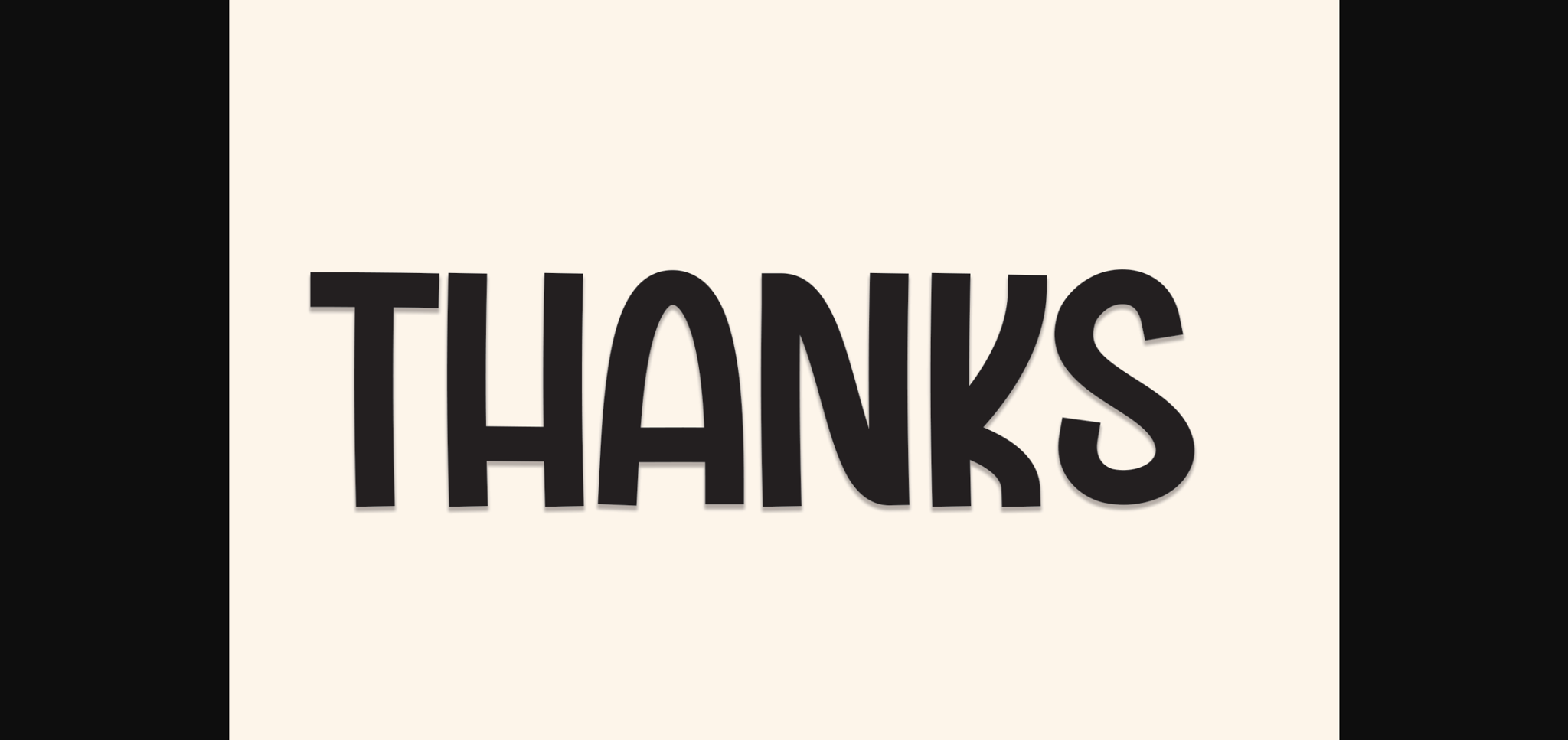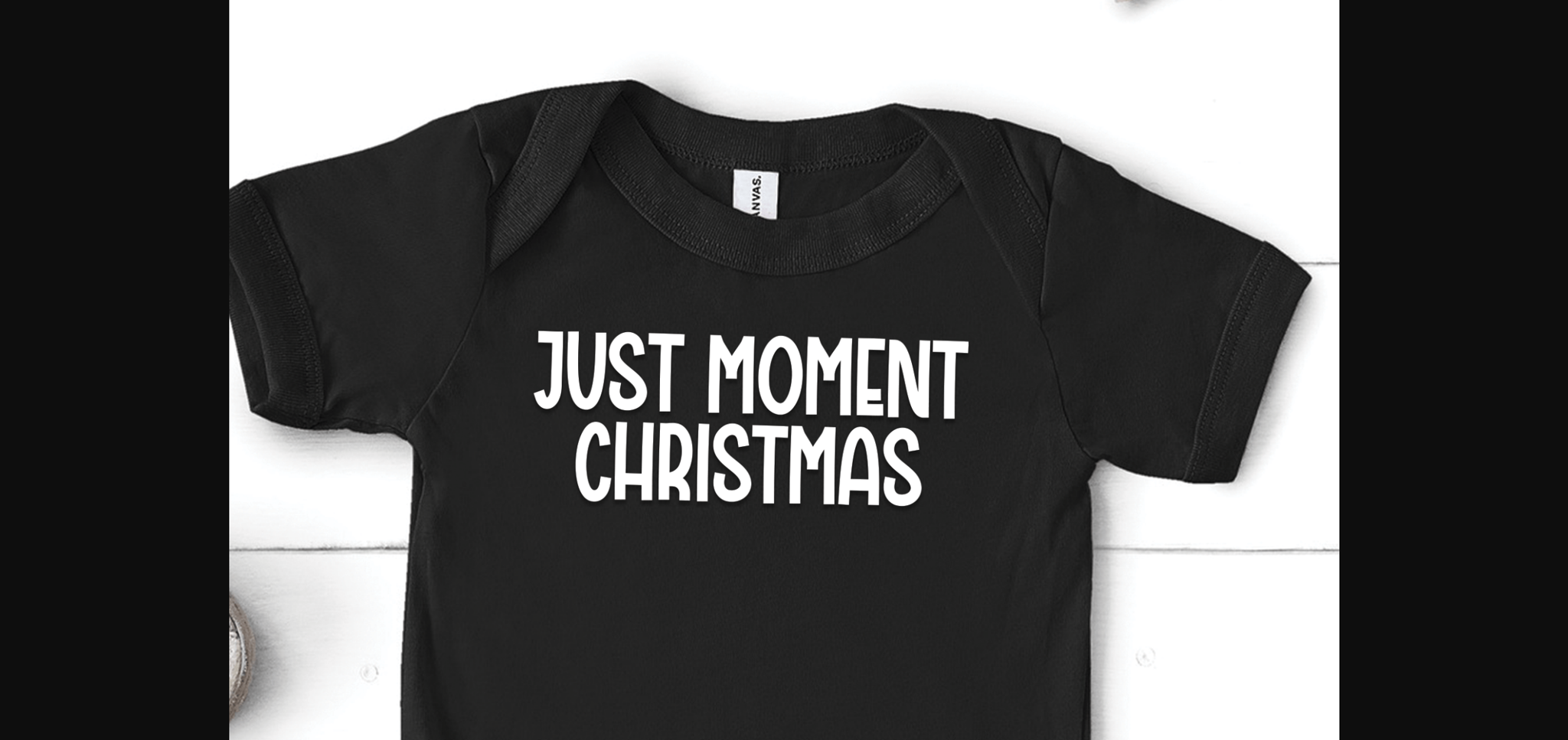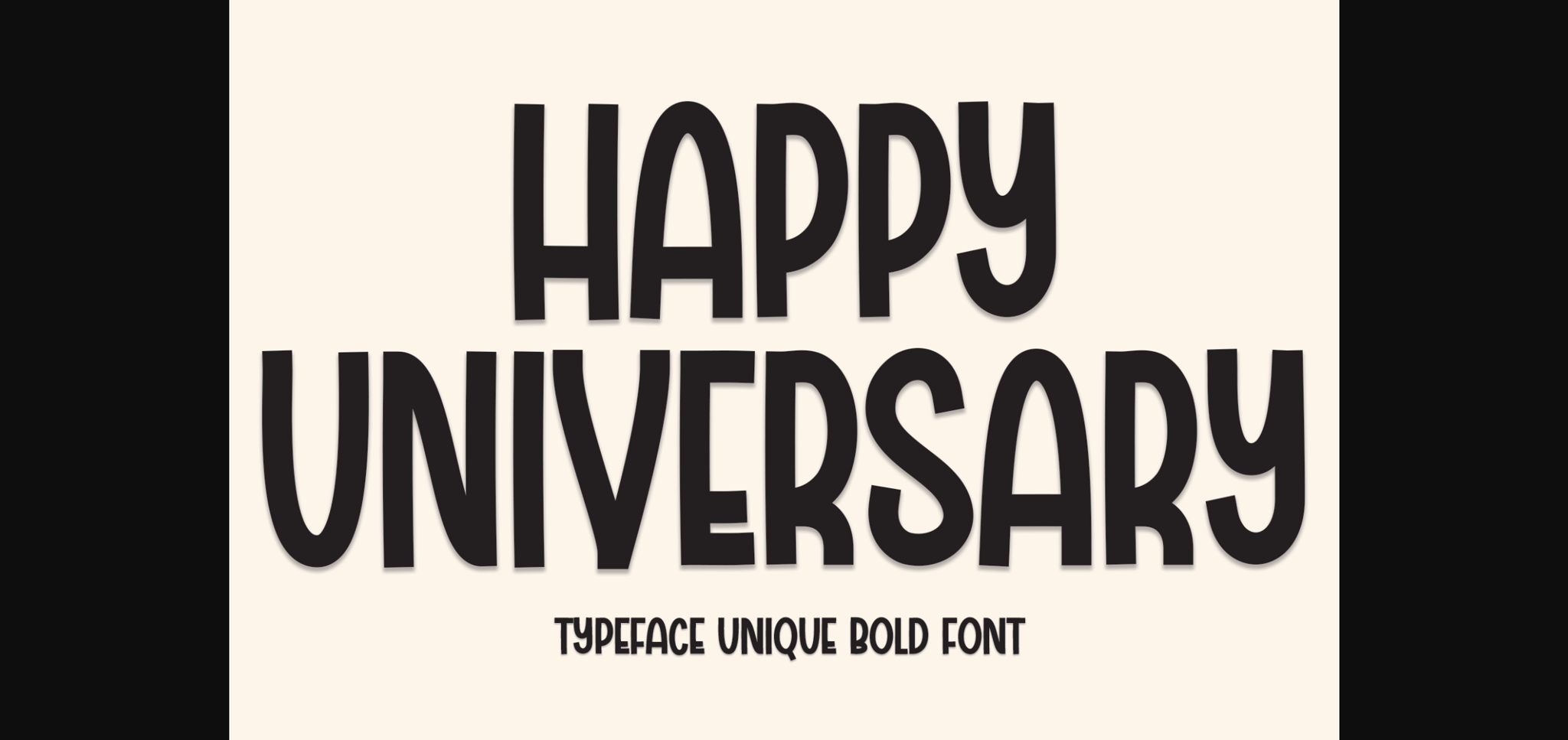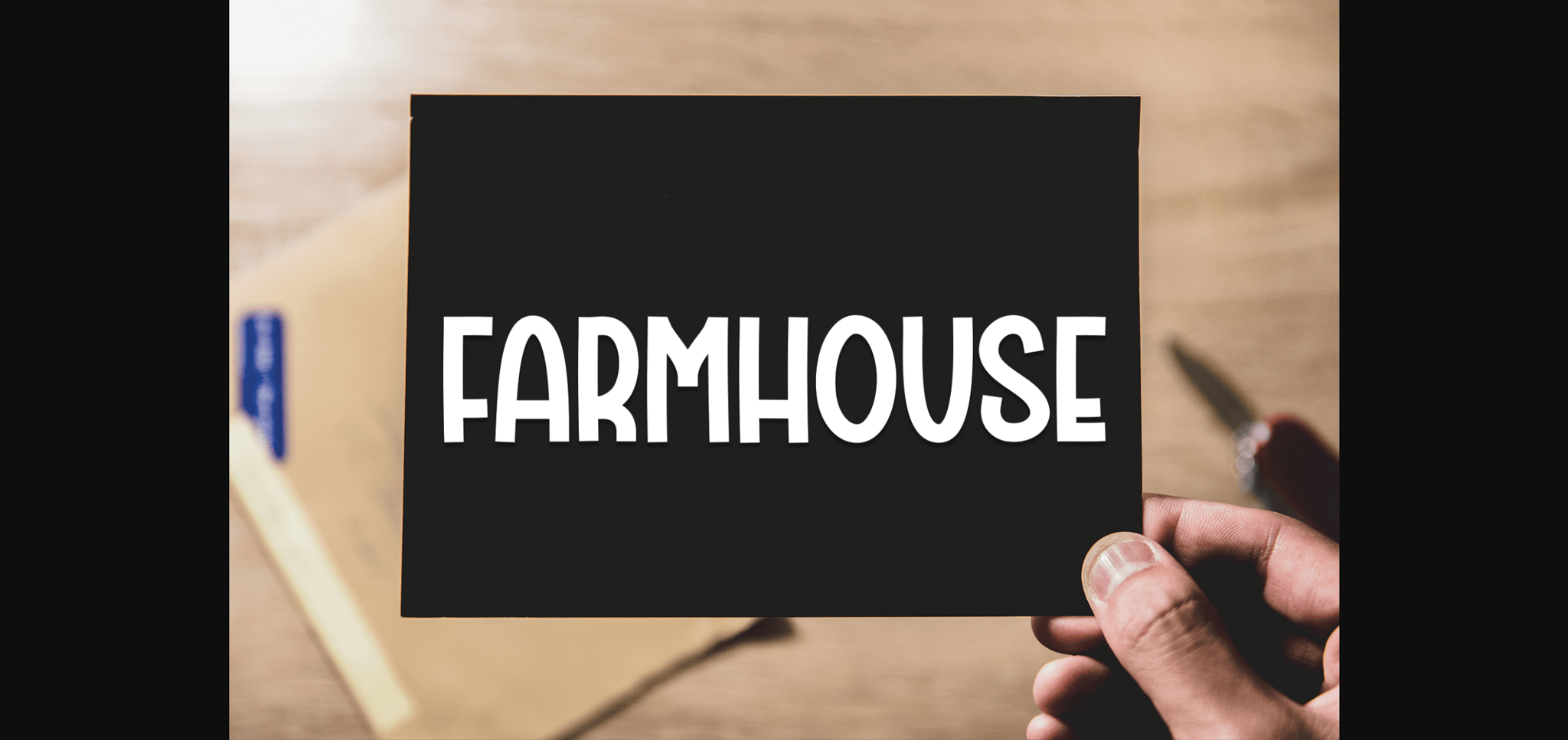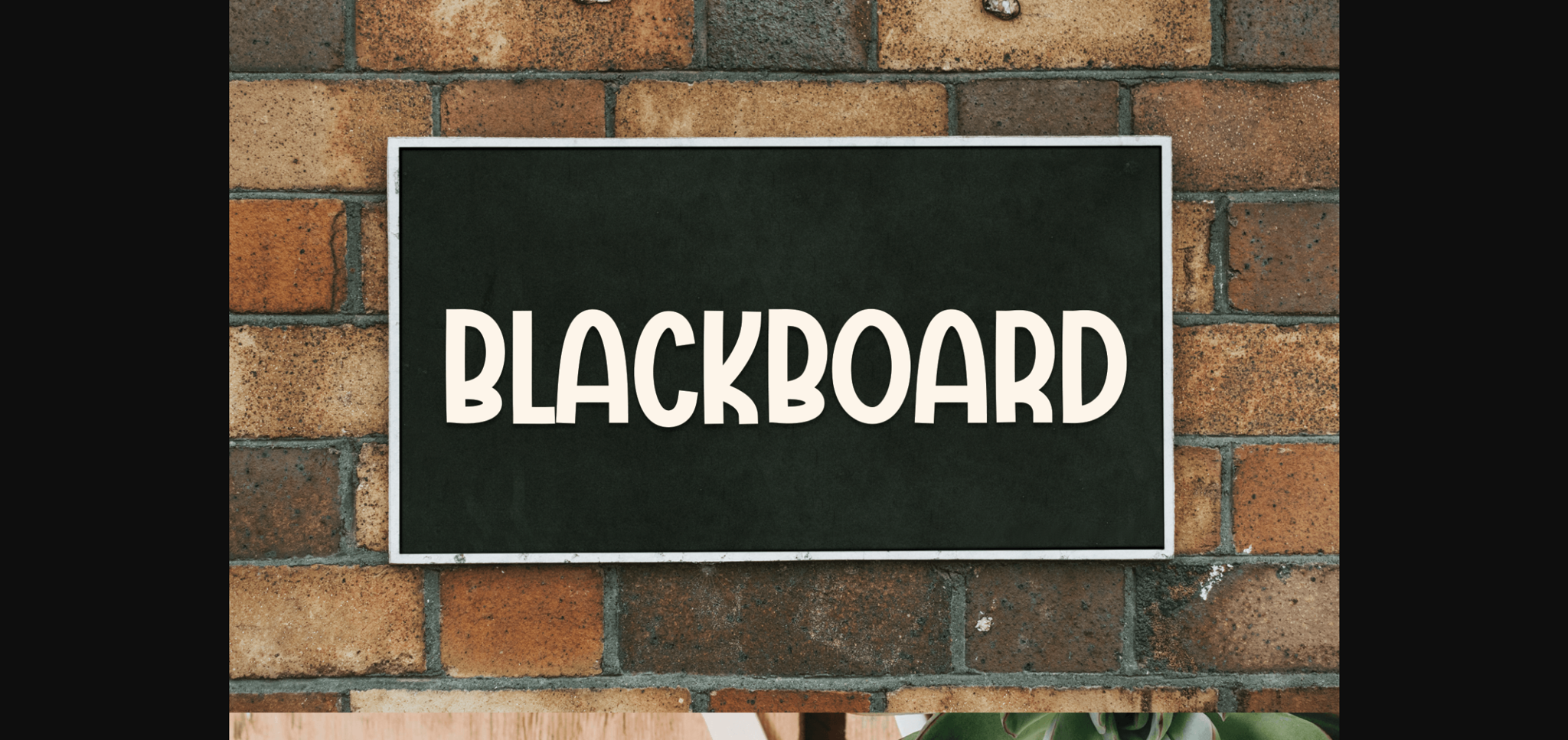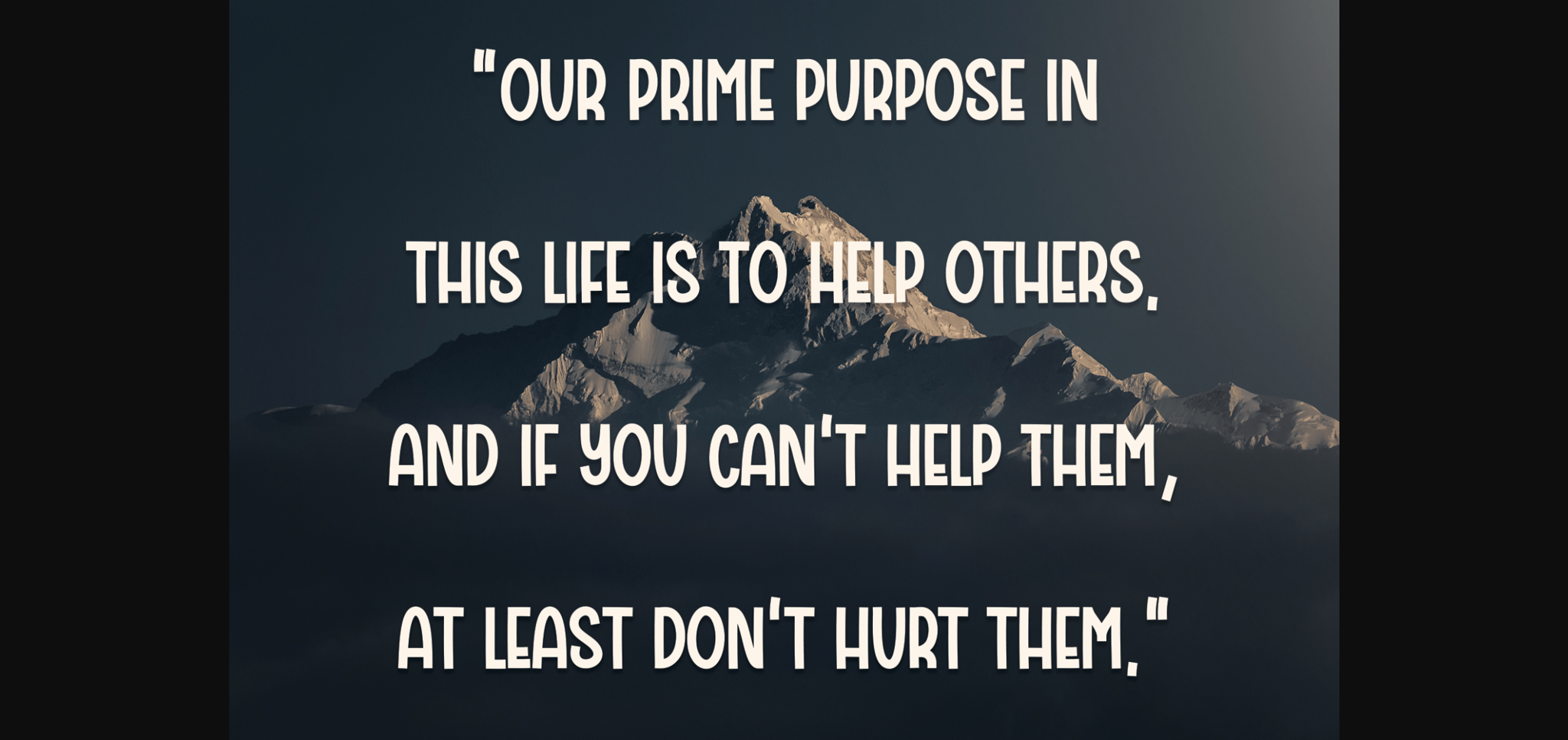
About Happy Universary Font
Happy Universary is a modern and clean sans-serif font. Its latest style letters are perfect for wall displays, wedding invitations, social media posts, logos, advertisements, product packaging, product designs, labels, photography, watermarks, invitations, stationery, and any project that requires impeccable typography.